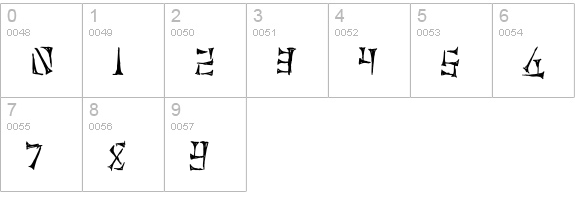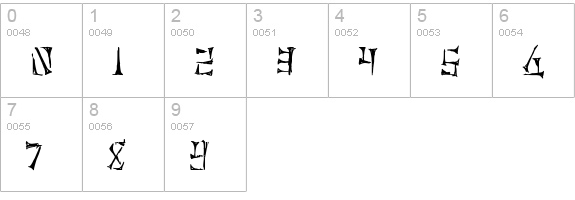
Cuneiforme Font Details
Introducing Cuneiforme, a captivating and distinctive font that pays homage to the ancient script of cuneiform. This remarkable typeface beautifully combines the elegance of calligraphy with the mystique of ancient Mesopotamia, resulting in a truly unique and visually captivating font. Cuneiforme stands out with its intricate and intricate strokes, meticulously crafted to resemble the wedge-shaped characters that were once etched onto clay tablets. Each letter is meticulously designed to capture the essence of this ancient writing system, creating a sense of historical authenticity and intrigue. This font seamlessly blends the traditional with the contemporary, making it a versatile choice for a wide range of creative projects. Whether you're designing a logo, creating a poster, or crafting an eye-catching headline, Cuneiforme adds a touch of sophistication and cultural richness to any composition. One of the most remarkable aspects of Cuneiforme is that it is freely available to download at FontsMarket.com. This means that designers, typographers, and enthusiasts alike can easily access and utilize this extraordinary font without any financial constraints. The creators of Cuneiforme understand the importance of promoting creativity and accessibility, making it an invaluable resource for individuals and businesses alike. So, if you're looking to add a touch of ancient allure and historical significance to your next design project, look no further than Cuneiforme. With its captivating aesthetics and the fact that it is freely available for download at FontsMarket.com, this font is a true gem that will undoubtedly elevate your creations to new heights. Embrace the beauty and timelessness of cuneiform script with Cuneiforme, and let your designs speak a language that transcends time.